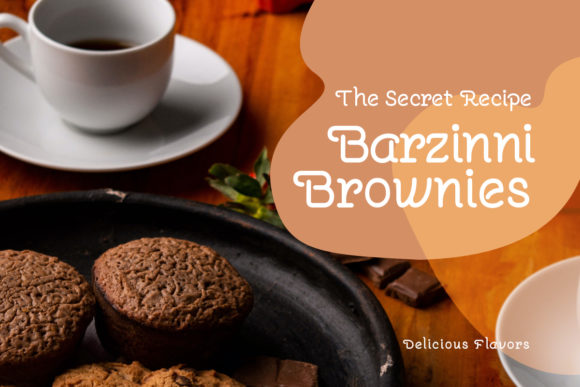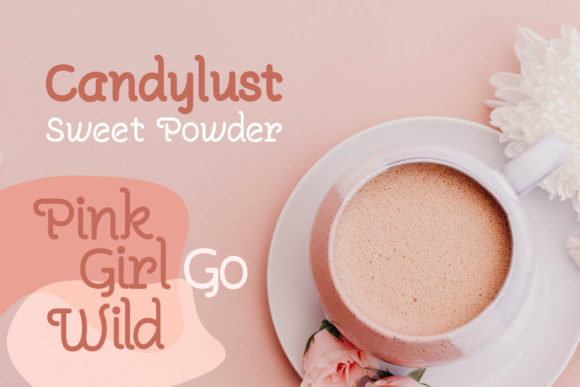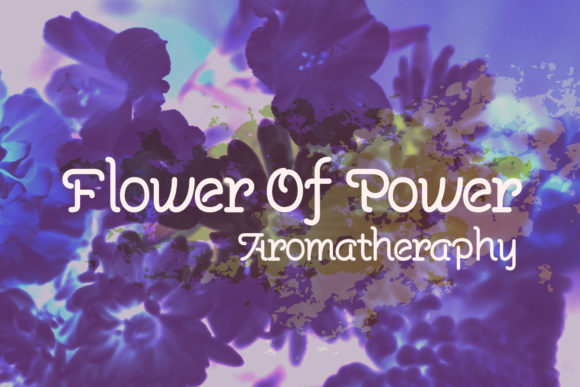
Introduction to Prunellia Font
Have you ever stumbled upon the perfect font for a project and felt like it’s the missing piece to bring your creative vision to life? For designers, this moment is like finding a treasure trove of inspiration, and that’s exactly what the Prunellia Font offers.
As a design resource, Prunellia Font stands out with its unique blend of warmth and playfulness, making it a perfect fit for headings, flyers, and even book covers. Its high-quality design ensures that your creative project stands out from the crowd, and with a transparent background, you can easily layer it with other design elements to create a visually stunning effect.
Key Features of Prunellia Font
- Unique, stylish design that adds a touch of elegance to any creative project
Honest Review: Prunellia Font
I recently had the chance to dive into the Prunellia Font and I must say it’s been a delightful experience. This high-quality design resource has been a game-changer for my creative project.
Here are some of the things that worked well for me:
- ✨ The font’s elegant script style adds a touch of sophistication to any design.
- ✨ The transparent background makes it easy to overlay on any image or background.
- ✨ The font is highly customizable, allowing for a range of sizes and styles.
- ⚠️ The font’s script style can be quite ornate, which may not be suitable for all design projects.
Overall, I’m thoroughly impressed with the Prunellia Font. It’s a fantastic resource for any designer looking to add a touch of elegance to their creative project. If you’re looking for a high-quality, free design resource, I highly recommend giving it a try.
How to Use Prunellia Font
Prunellia Font is a high-quality design resource that offers a transparent background, making it ideal for creative projects that require a sleek and modern look.
Prunellia Font is ideal for creative projects such as logos, business cards, brochures, and presentations. It’s also great for personal projects such as social media graphics and blog posts.
Getting the Most Out of Prunellia Font
To get the most out of Prunellia Font, experiment with different font sizes, colors, and styles. You can also combine it with other design elements such as images and graphics to create a unique and eye-catching design.